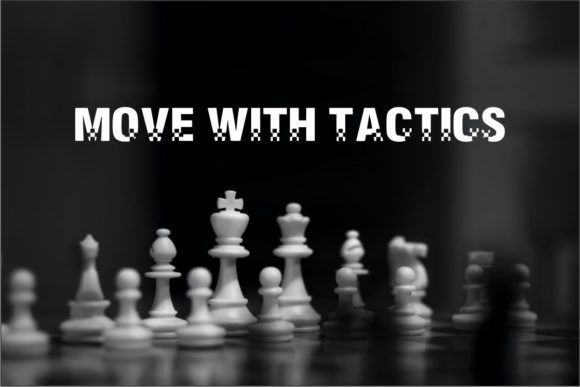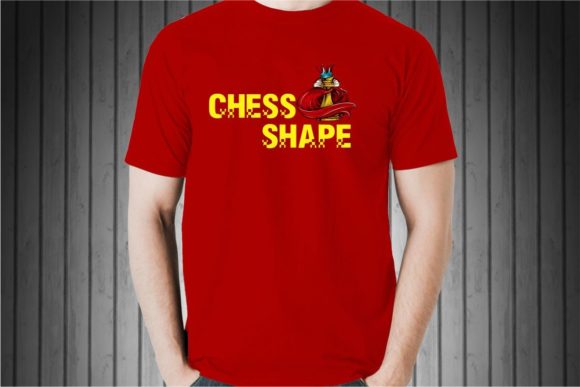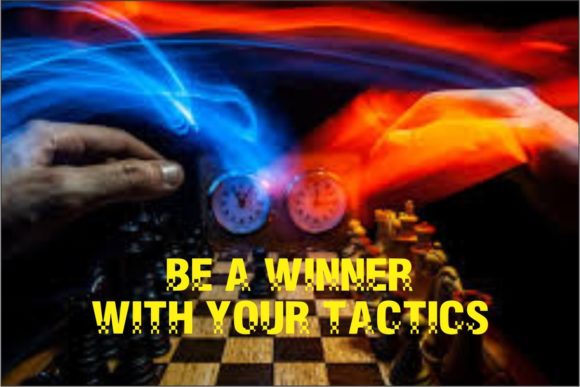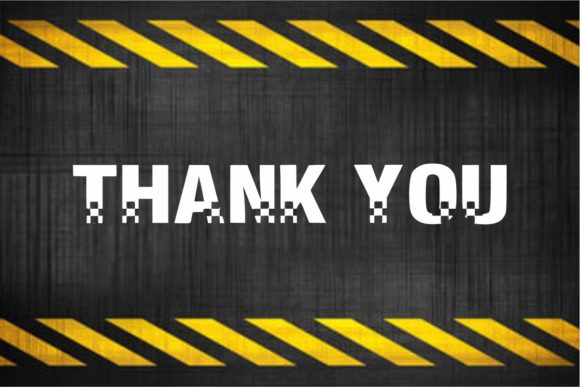
Introducing Chess Shape Font: Elevate Your Designs with a Touch of Strategic Elegance
Are you a designer, gamer, or crafty enthusiast looking for a unique font to add a dash of sophistication and strategy to your projects? Look no further than the Chess Shape Font, a decorative font that embodies the essence of chess – tactics, strategy, and intellectual prowess. In this article, we’ll explore the world of Chess Shape Font, its uses, and how it can bring your creative ideas to life.
What is Chess Shape Font?
Chess Shape Font is a specially designed decorative font that takes inspiration from the classic game of chess. Each letter and symbol is crafted to resemble chess pieces, boards, and other elements, making it a perfect fit for any project that requires a touch of strategic elegance. Whether you’re designing a logo, creating a chess-themed background, or simply looking for a unique font for your t-shirt design, Chess Shape Font is the perfect choice.
Uses of Chess Shape Font
The versatility of Chess Shape Font is one of its most significant advantages. Here are some of the many ways you can use this font to elevate your designs:
- Games: Create engaging game titles, menus, and interfaces that reflect the strategic essence of chess.
- Chess Themes: Design chess-themed backgrounds, posters, and flyers that showcase your love for the game.
- Logos: Craft unique and memorable logos for your business or brand that convey intelligence and sophistication.
- T-Shirts: Add a touch of personality to your t-shirt designs with Chess Shape Font, perfect for gamers, chess enthusiasts, and anyone who appreciates strategic style.
- Backgrounds: Create stunning backgrounds for your website, social media, or marketing materials that feature the elegant design of Chess Shape Font.
Why Choose Chess Shape Font?
So, what sets Chess Shape Font apart from other decorative fonts? Here are a few reasons why designers and crafters love this font:
- Unique Design: Each letter and symbol is carefully crafted to resemble chess pieces and elements, making it a one-of-a-kind font.
- High Versatility: Use Chess Shape Font for a wide range of projects, from games and logos to t-shirts and backgrounds.
- Elegant and Sophisticated: The font’s design exudes intelligence, strategy, and sophistication, making it perfect for projects that require a touch of elegance.
To get the most out of Chess Shape Font, here are some tips and tricks to keep in mind:
- Experiment with Colors: Try out different colors and color combinations to find the perfect match for your design.
- Mix and Match: Combine Chess Shape Font with other fonts and design elements to create a unique and eye-catching design.
- Pay Attention to Details: Take the time to adjust the font size, spacing, and alignment to ensure your design looks polished and professional.
Chess Shape Font is a versatile and elegant decorative font that’s perfect for designers, gamers, and crafty enthusiasts. With its unique design, high versatility, and sophisticated style, this font is sure to elevate your designs and bring your creative ideas to life. Whether you’re working on a game, logo, t-shirt, or background, Chess Shape Font is the perfect choice. So why wait? Download Chess Shape Font today and start creating!